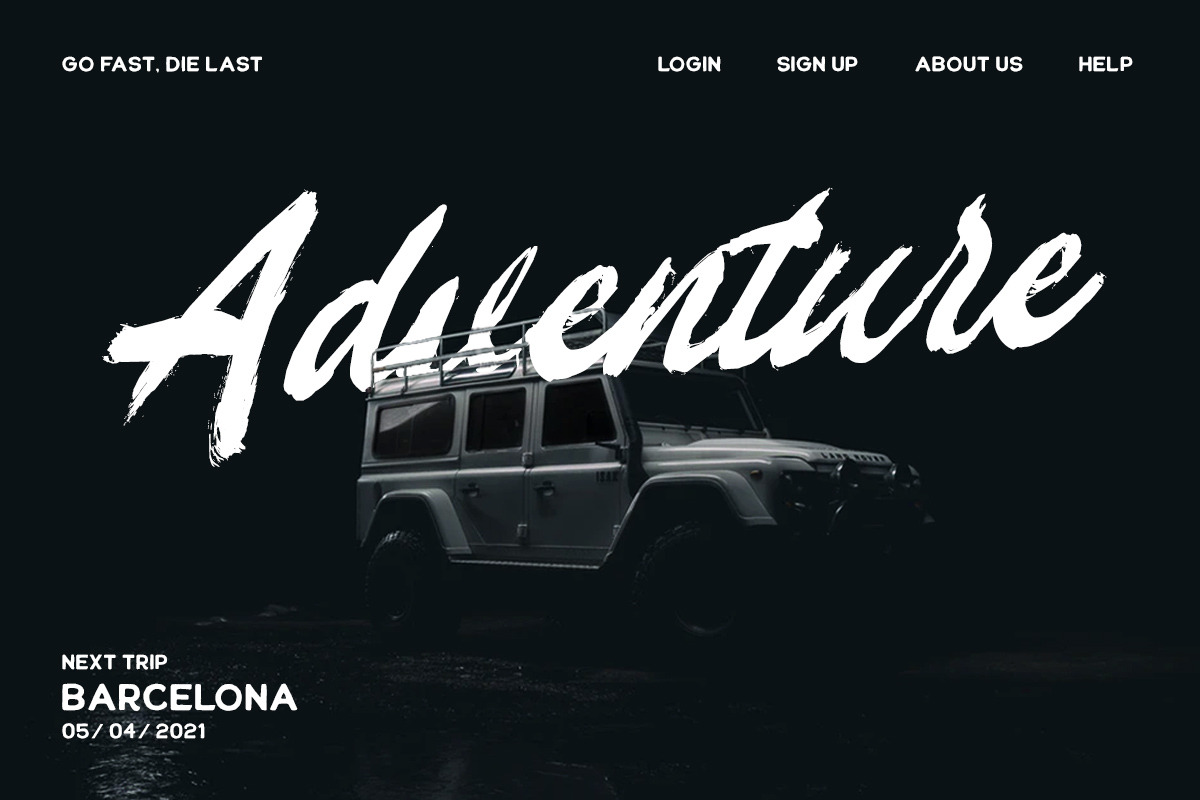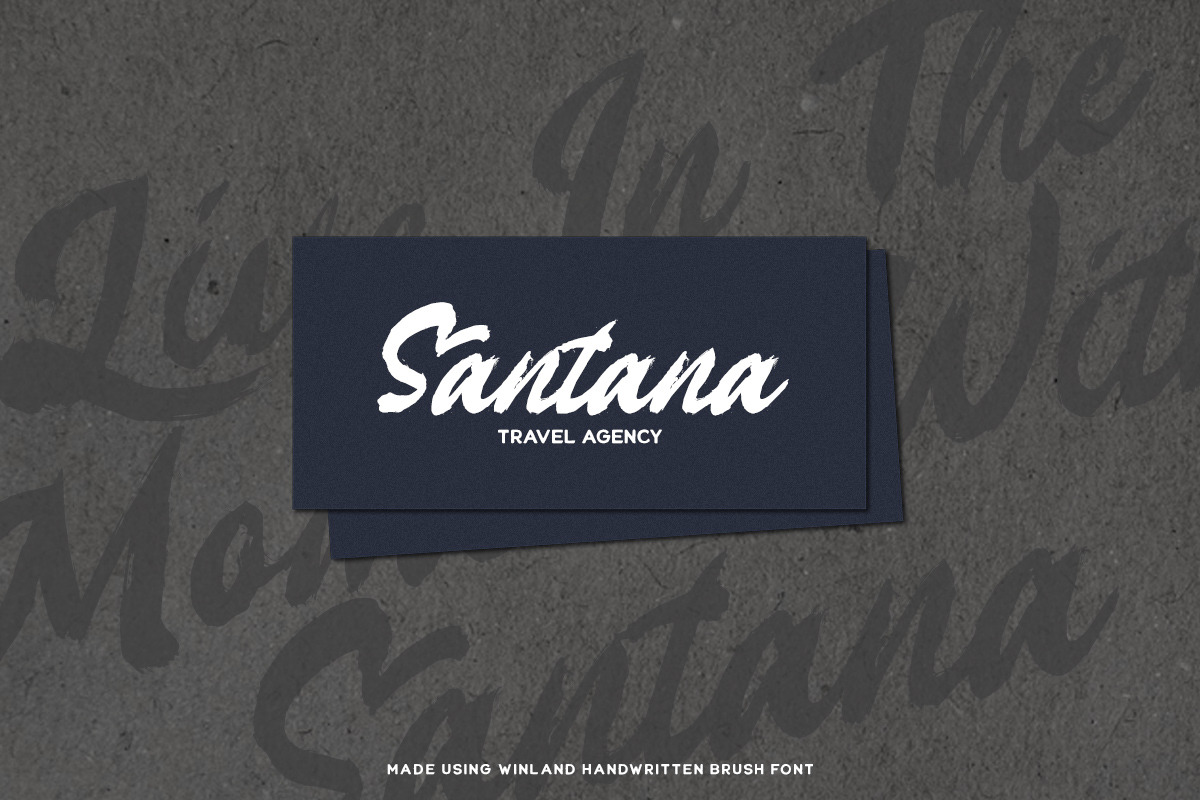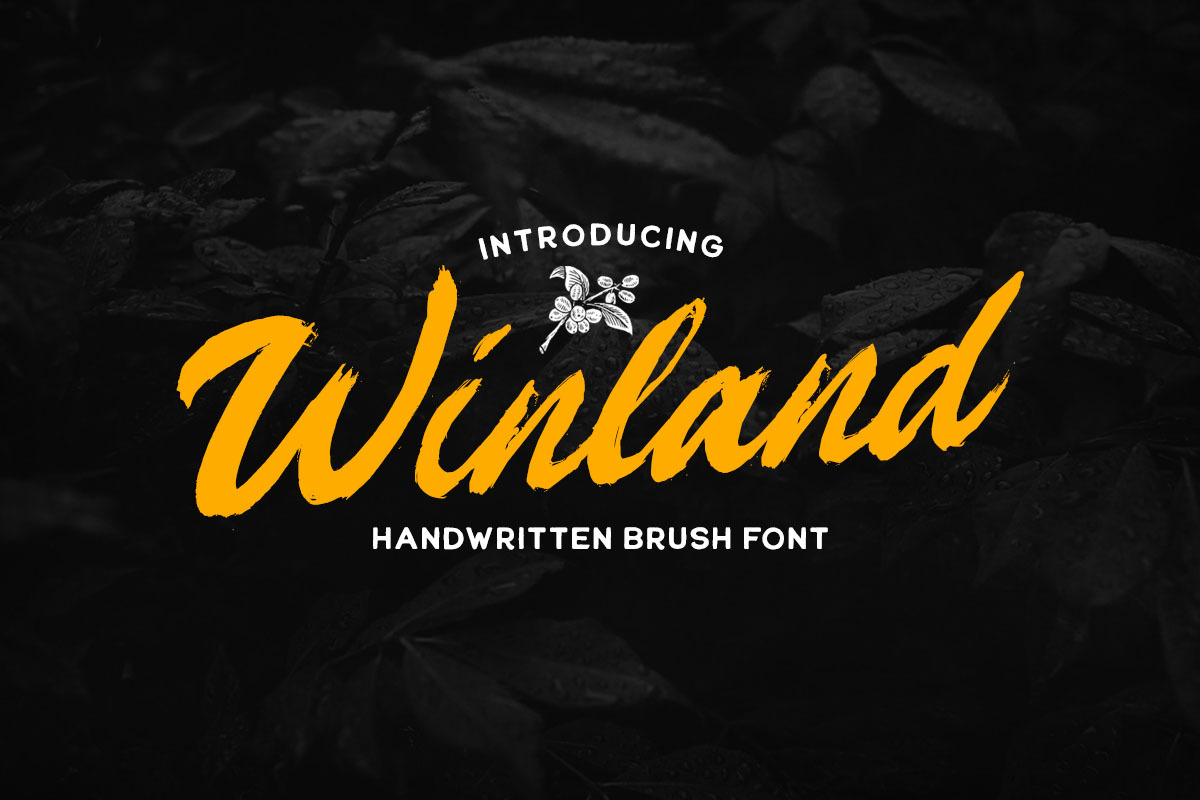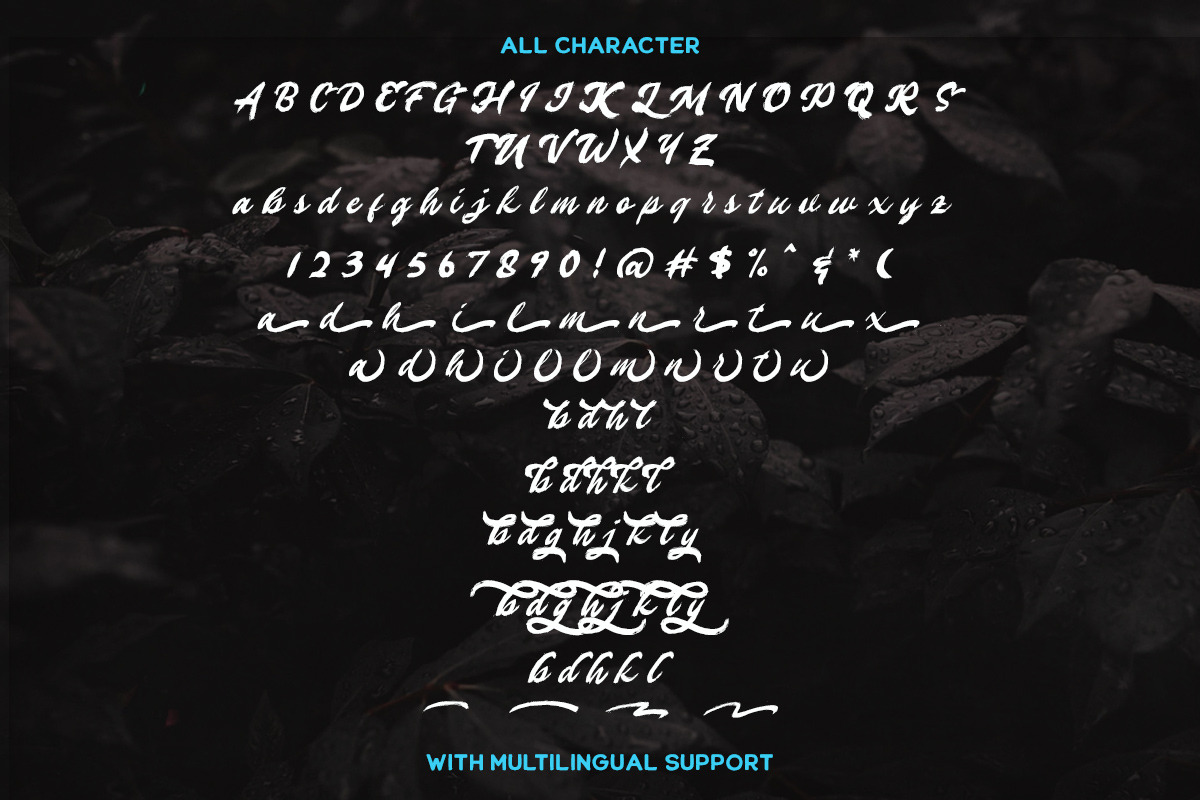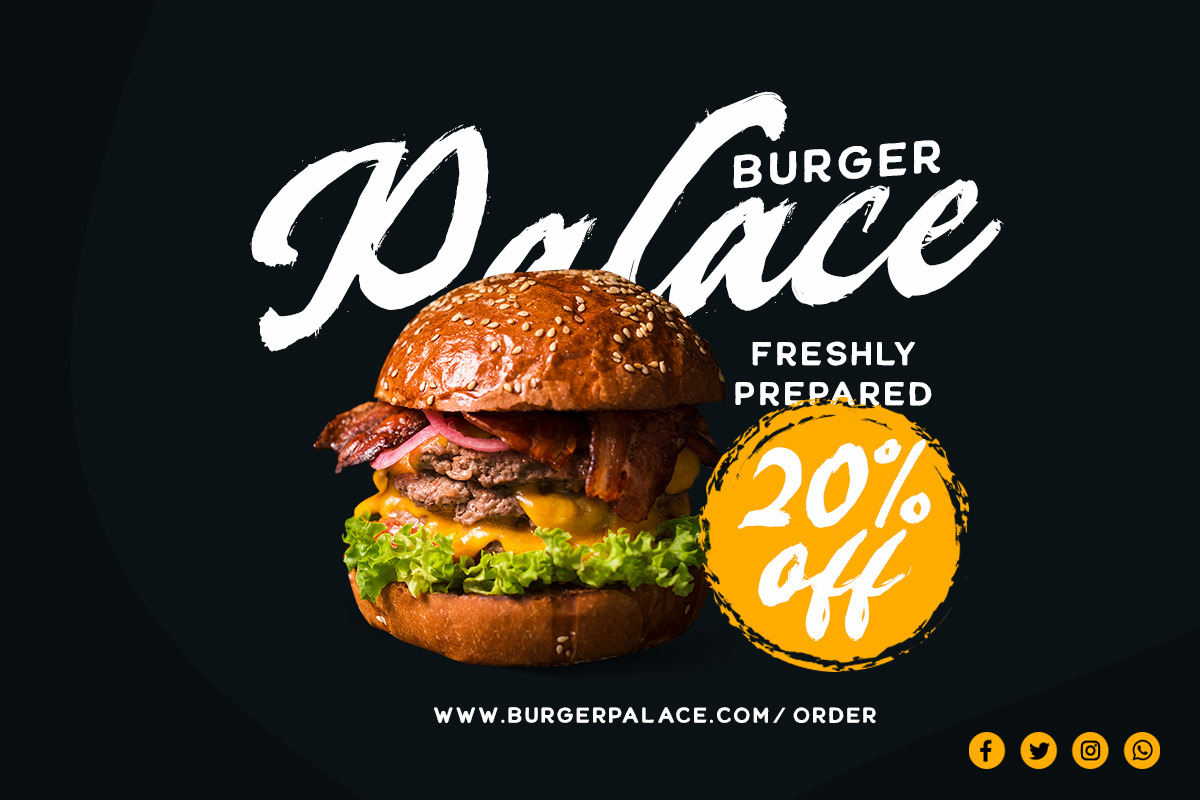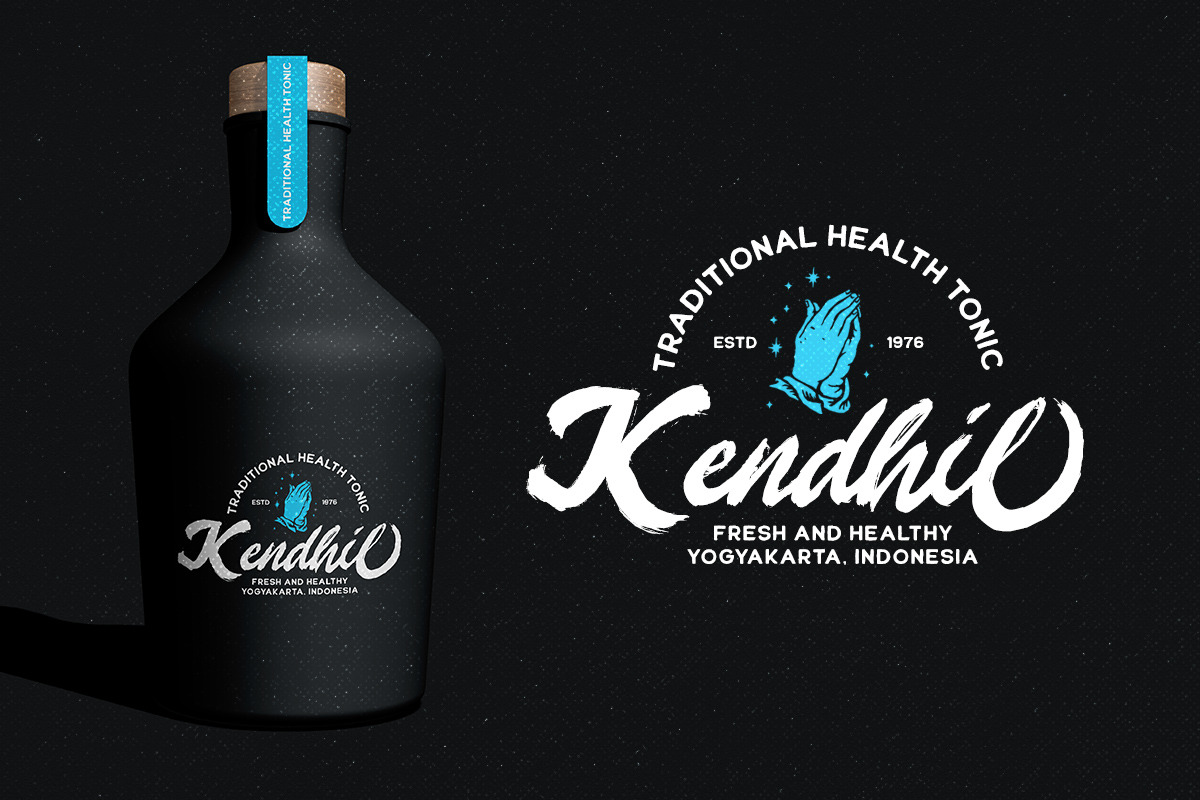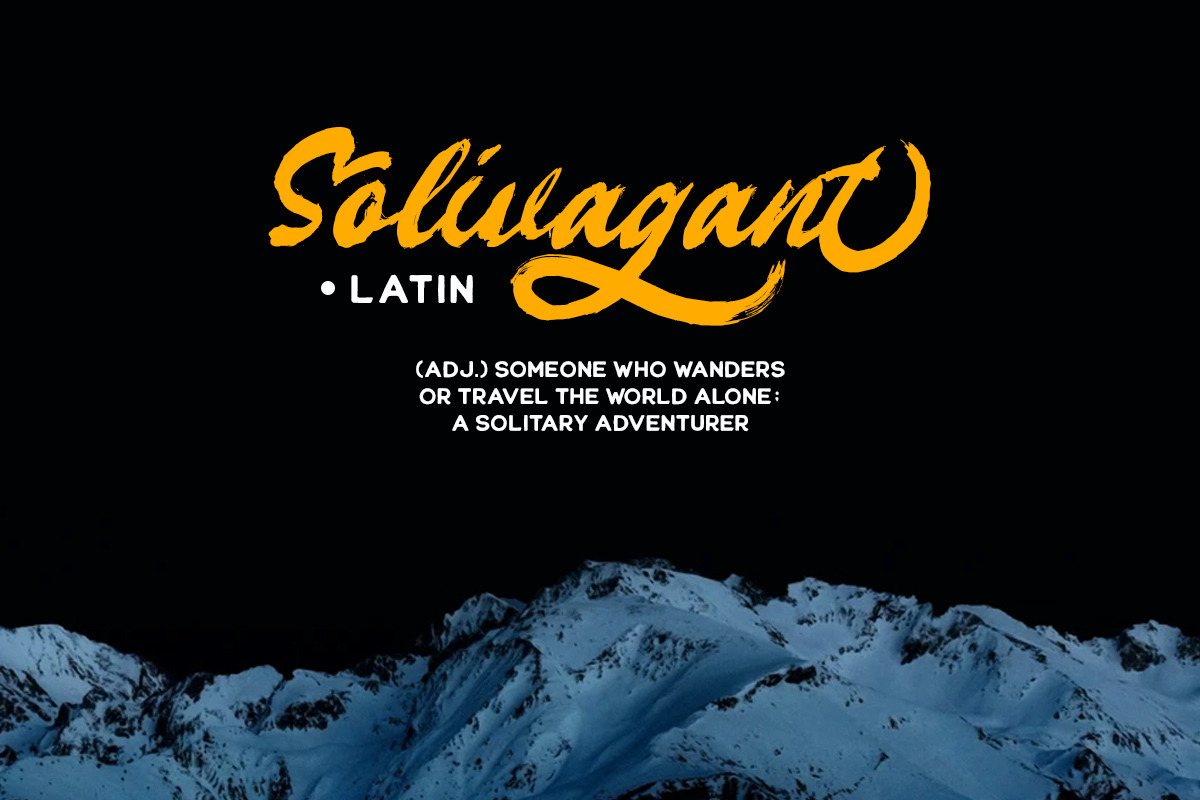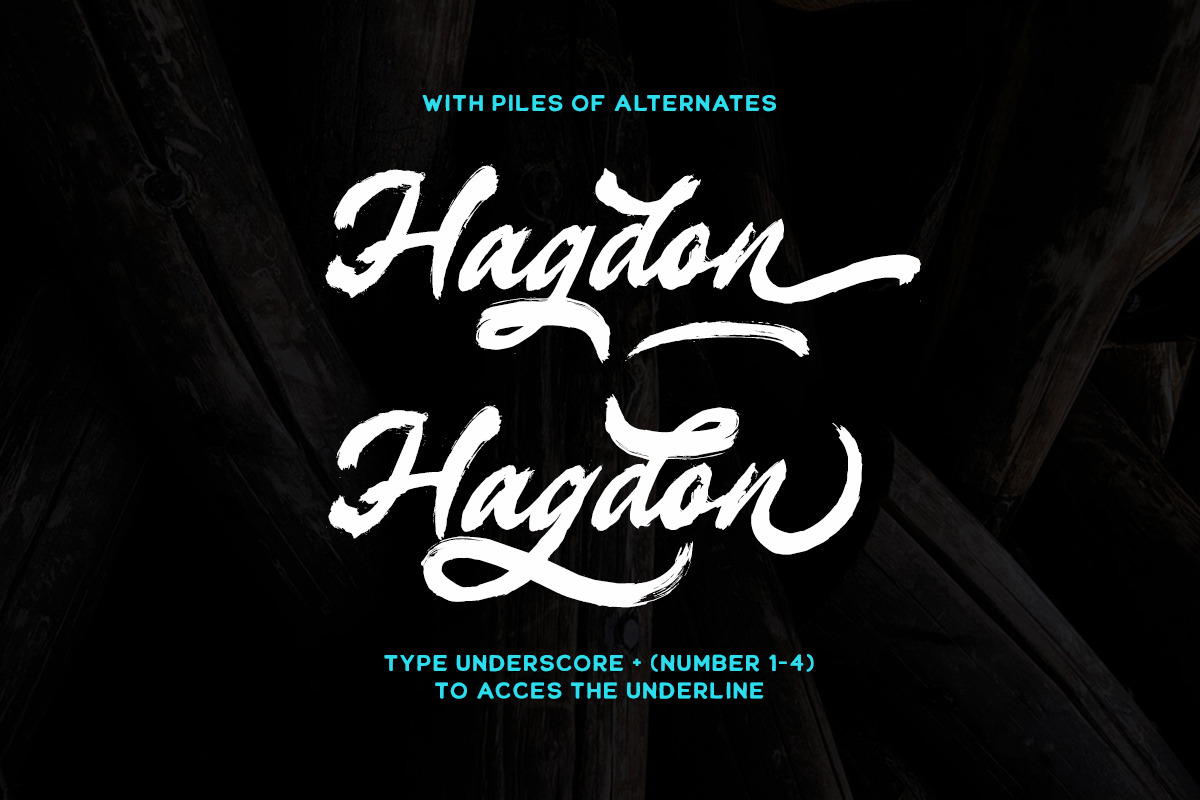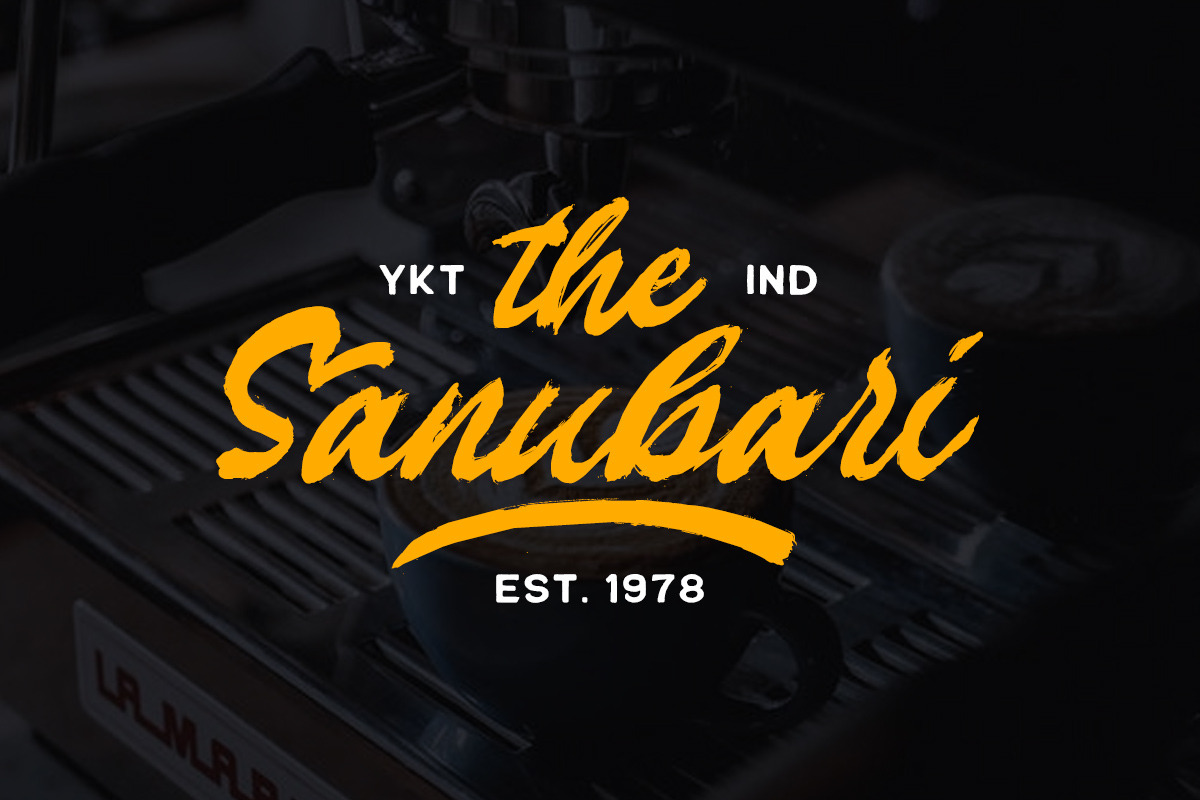
Winland - Brush Font
Introducing, Winland. This font is carefully crafted by handwritten brush to get the feels of natural brush. you can use this font for branding, packaging, quotes, headline, etc
- uppercase & lowercase (alternates)